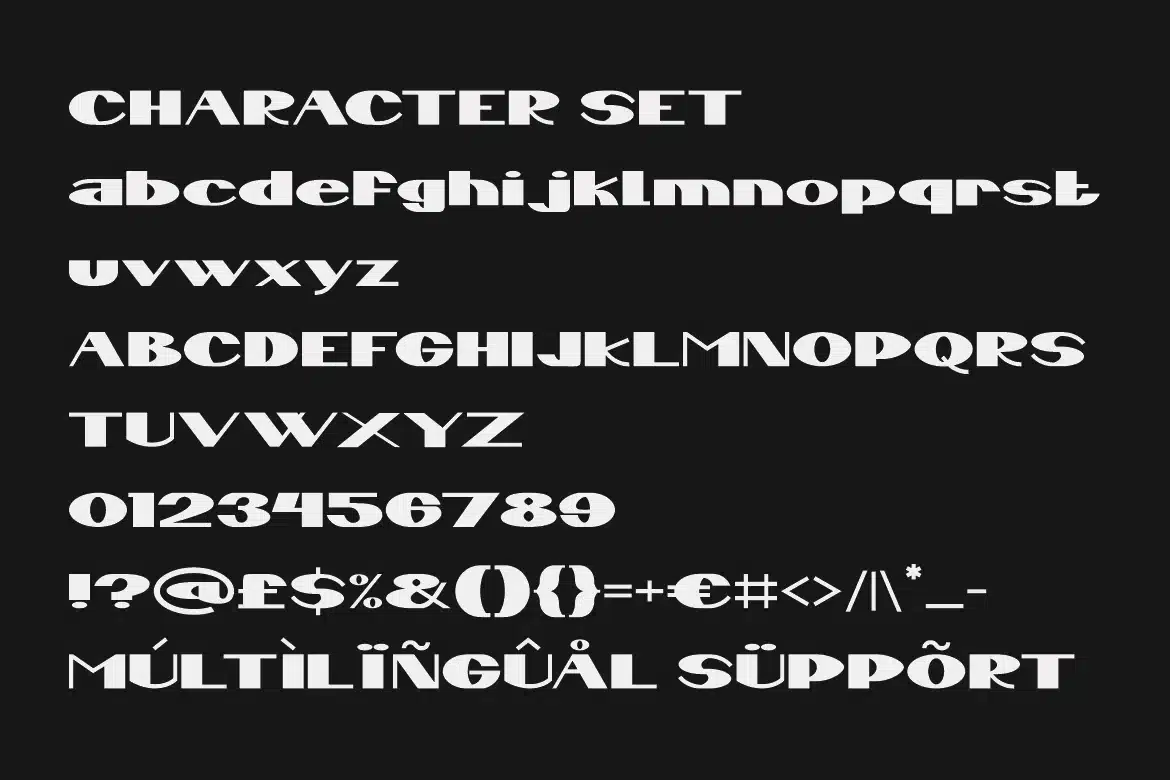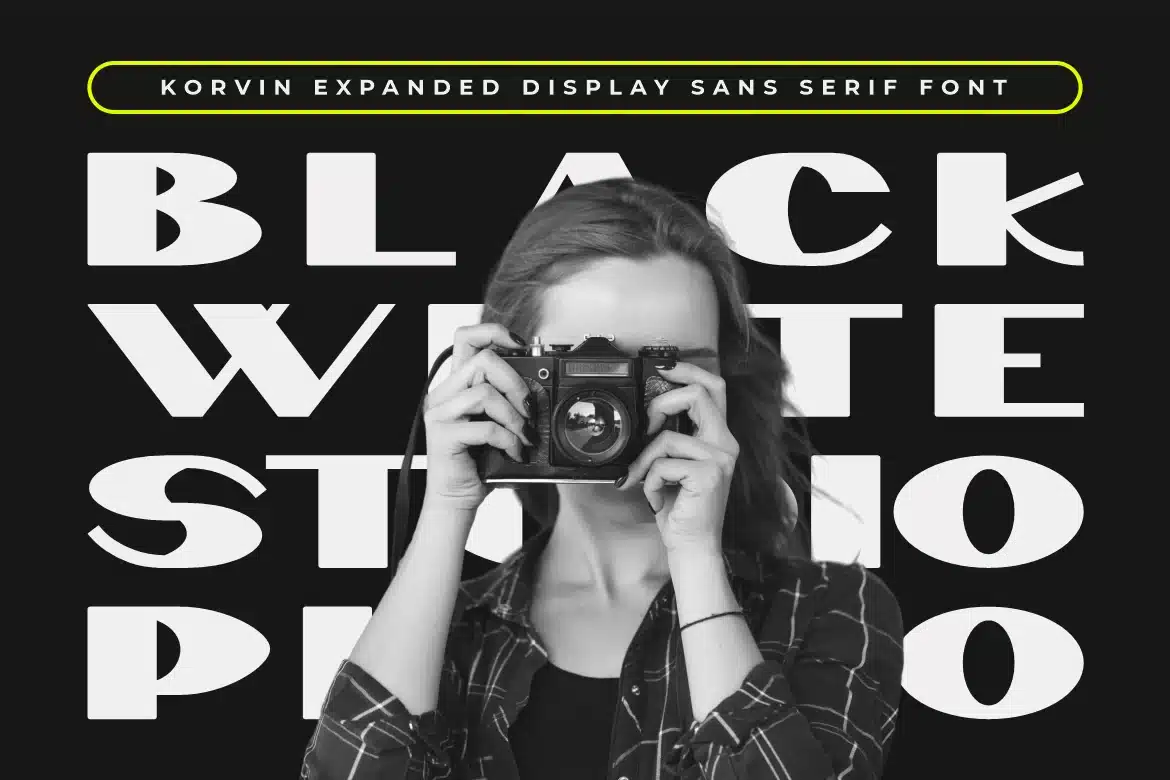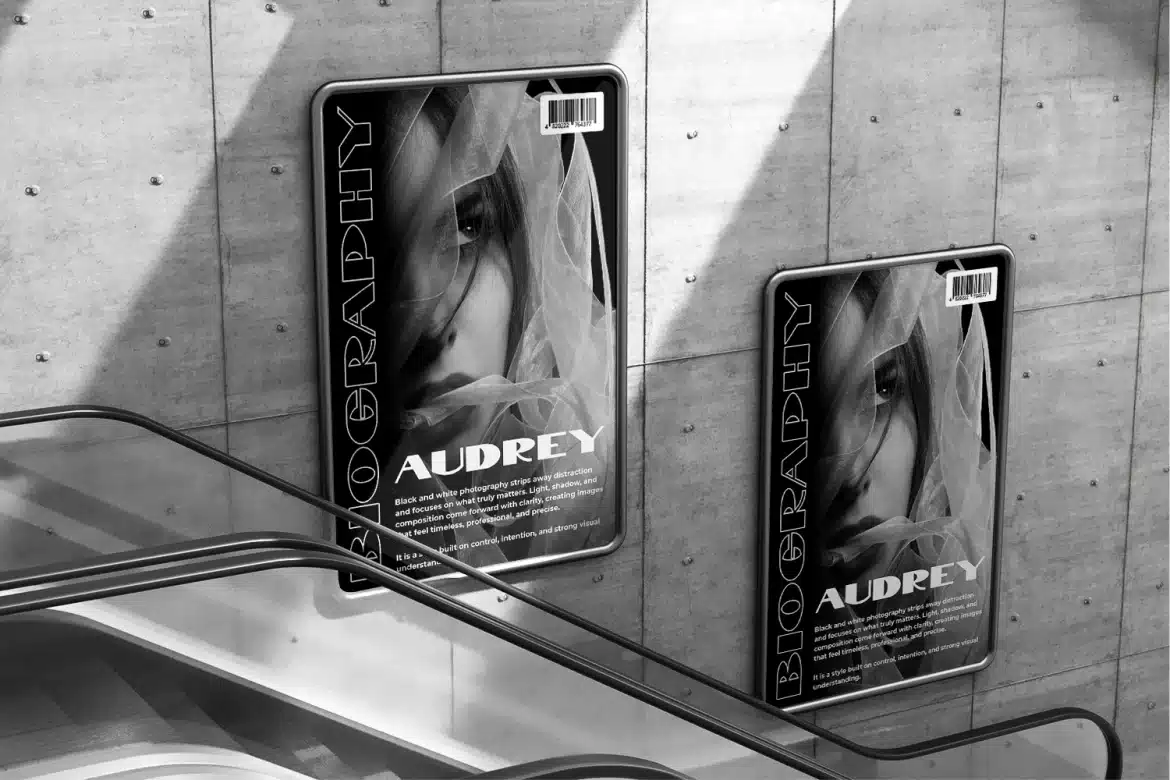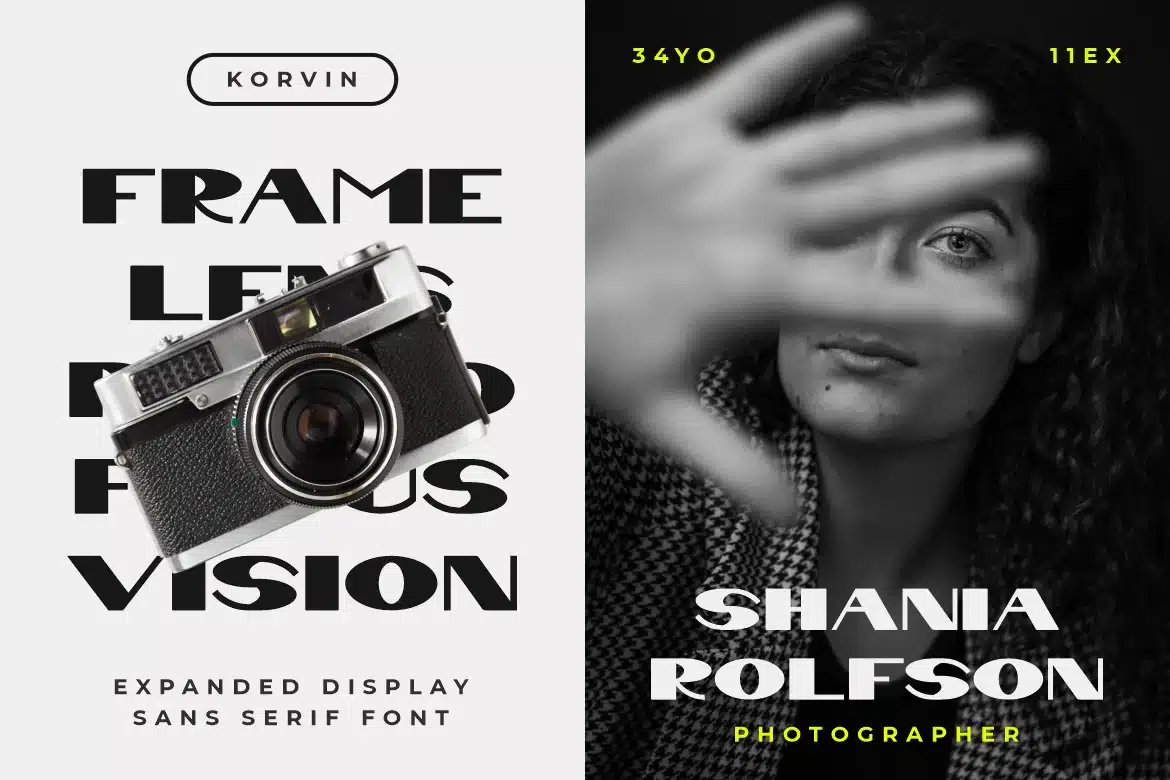
Korvin Expanded Display Sans Font
Korvin Bold Modern Sans Font is a strong display typeface built with wide proportions and bold weight. The letters use extended shapes that create a broad, stable, and commanding appearance. Clean strokes keep the structure sharp, while smooth curves balance the geometric edges. Several characters feature sliced cuts and angled terminals that add motion and modern tension. The spacing feels open, helping headlines stay clear and readable at large sizes. Thick stems give solid impact without looking heavy. Korvin Bold Modern Sans Font carries a futuristic corporate tone with sleek precision. It suits brands that need confidence, clarity, and a memorable visual voice.
This font works perfectly for logos, company identities, photography studios, agencies, startups, and tech brands. It also fits posters, magazine covers, packaging, banners, website headers, and social media titles. The extended letterforms create strong presence for editorial headlines and promotional campaigns. It performs well for architecture firms, automotive brands, fitness businesses, music events, and creative portfolios. Use it for signage, stickers, book covers, presentations, and advertising layouts. The modern sans style gives projects a clean professional direction. Bold shapes attract attention fast while keeping text organized. Choose this font when your brand needs sharp impact and contemporary energy.